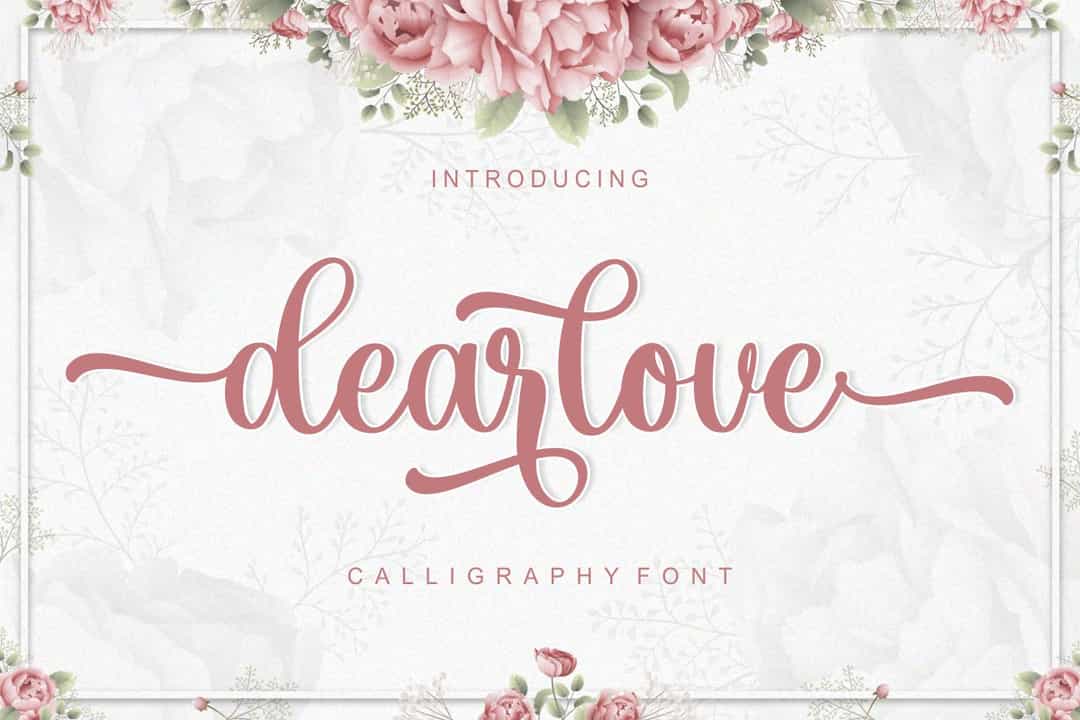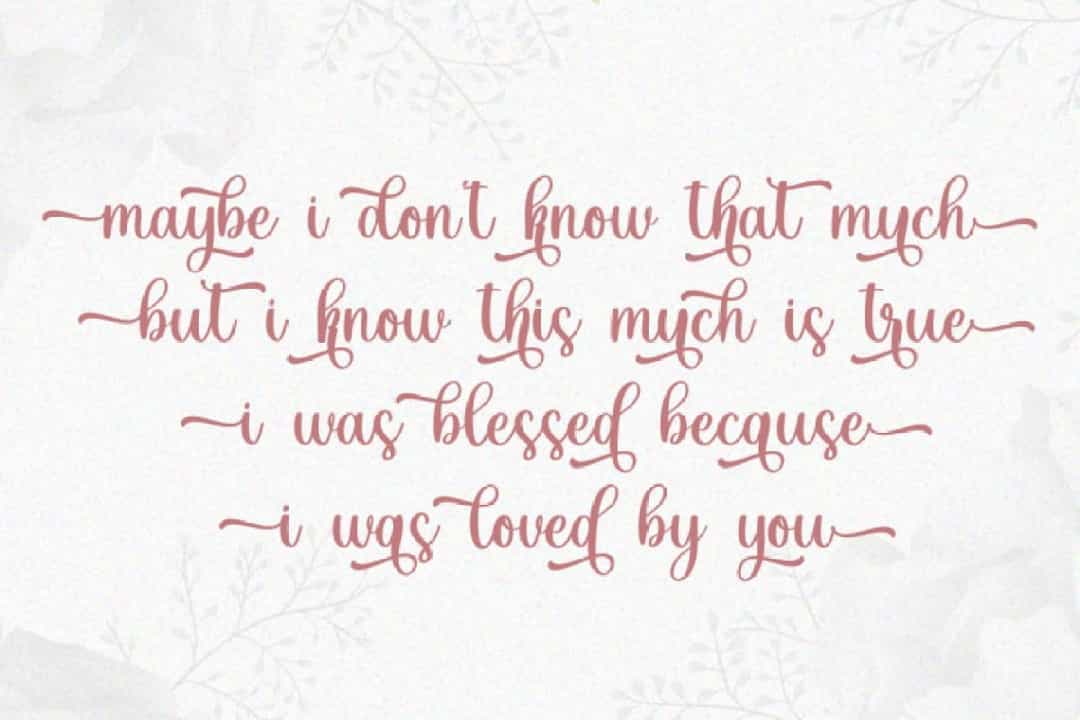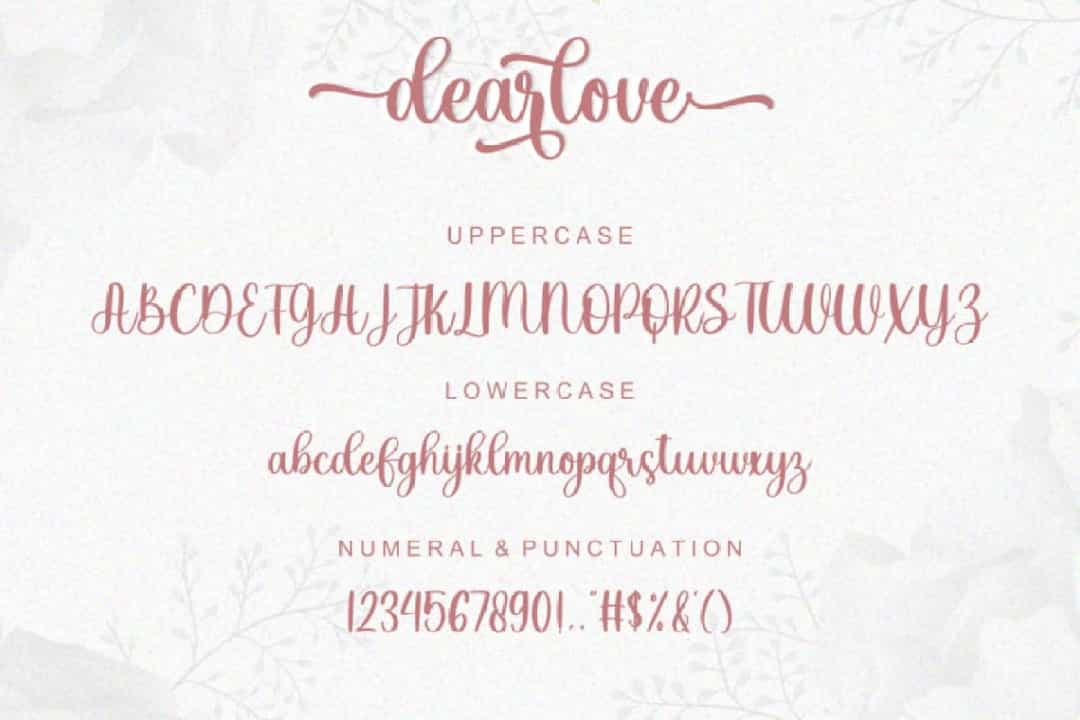
Dearlove is an elegant script font ideal for logos, designing invitation cards as well as stationery and wedding invitations, social media content, and advertisements. Furthermore, Dearlove can be applied in product designs, label watermarks, photography special occasions, or any other idea that can be thought of.